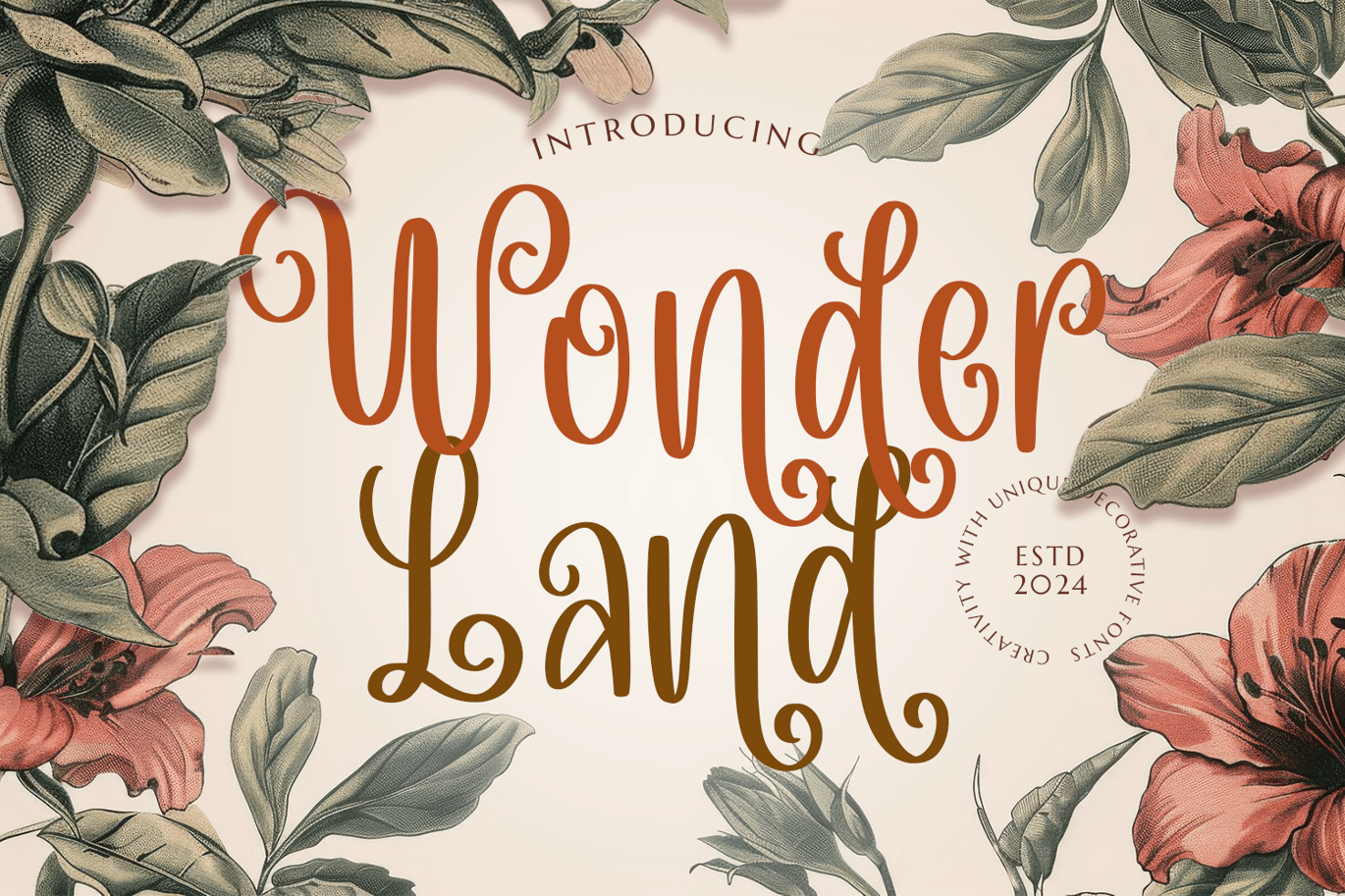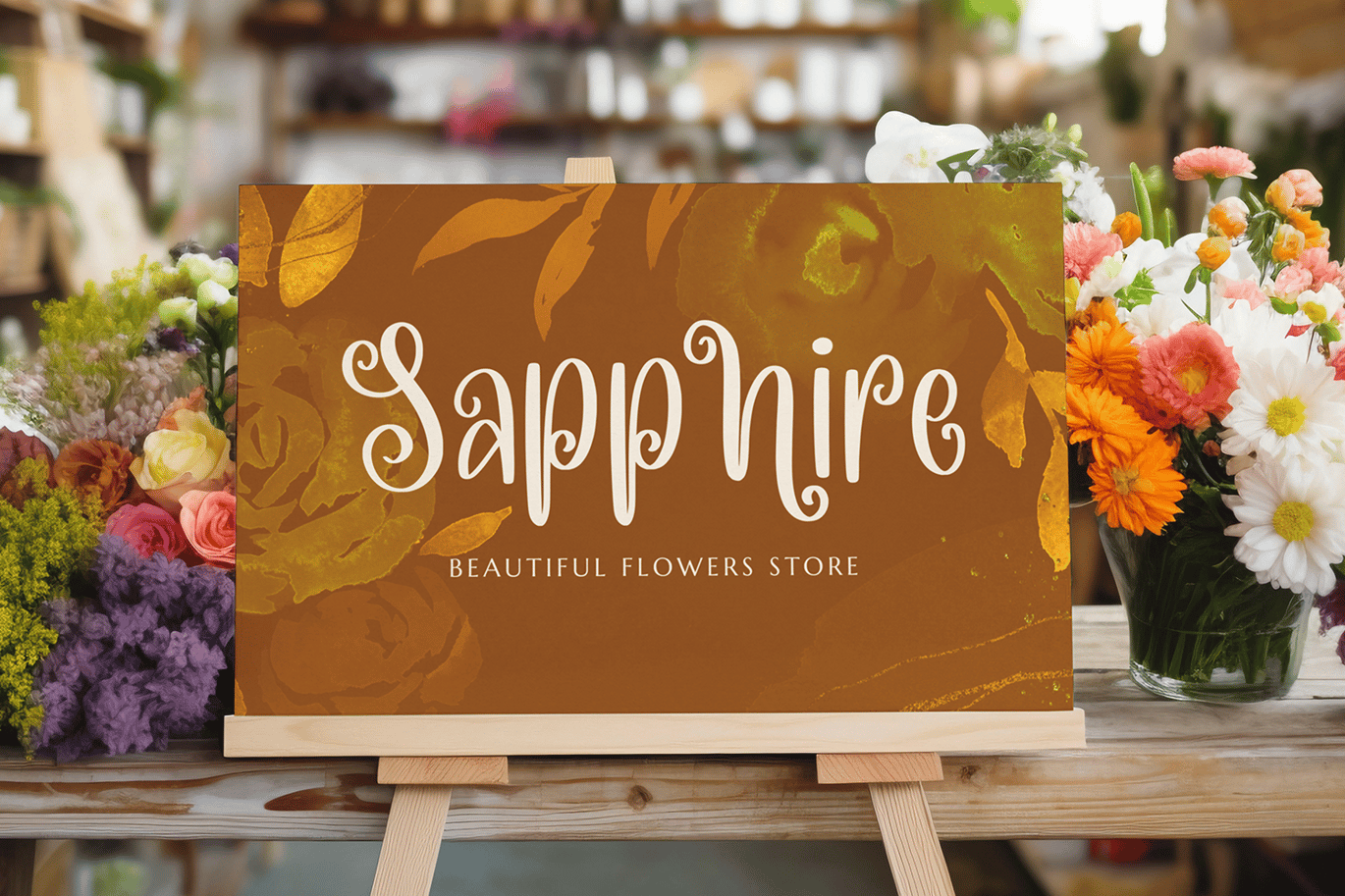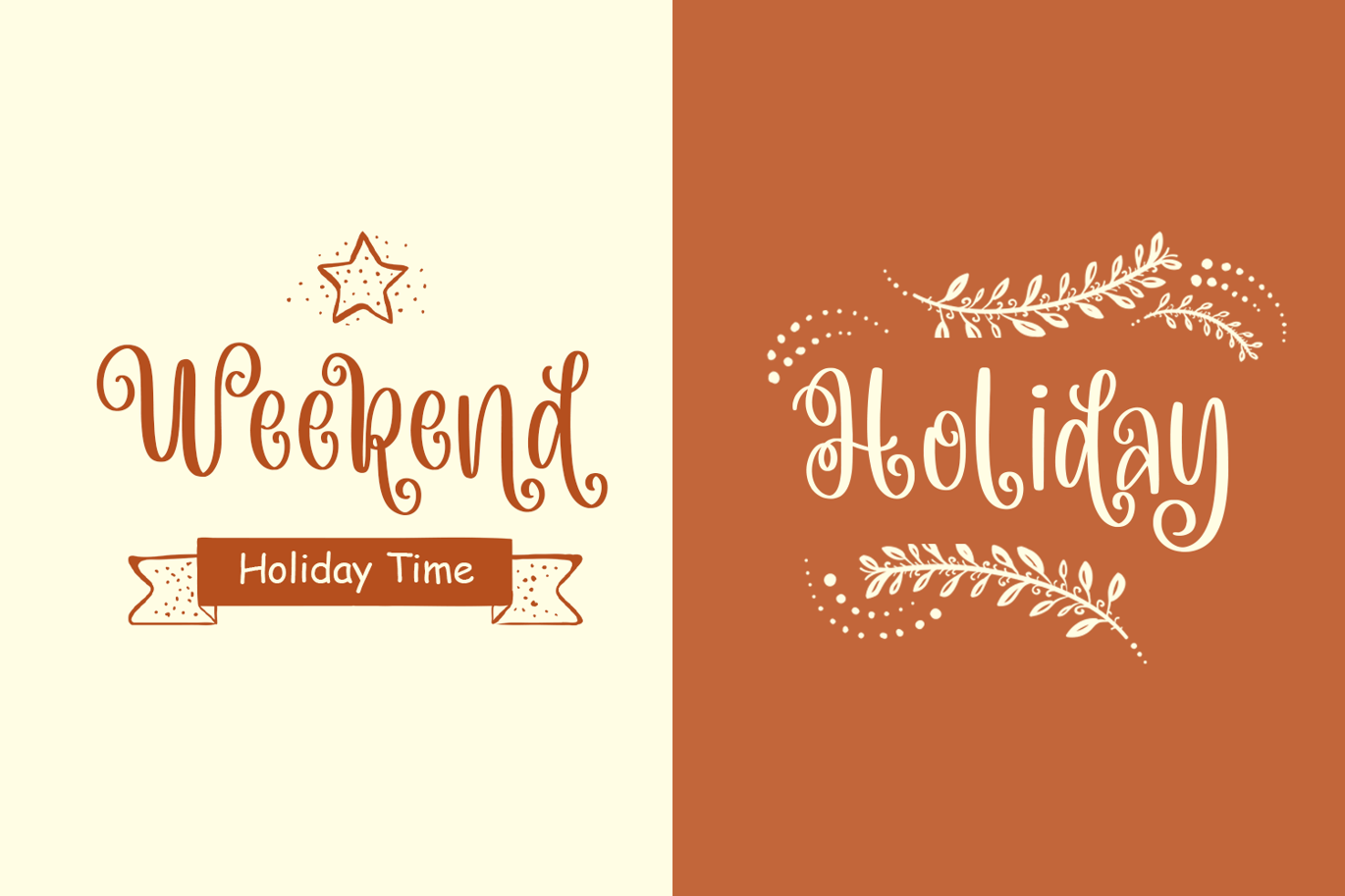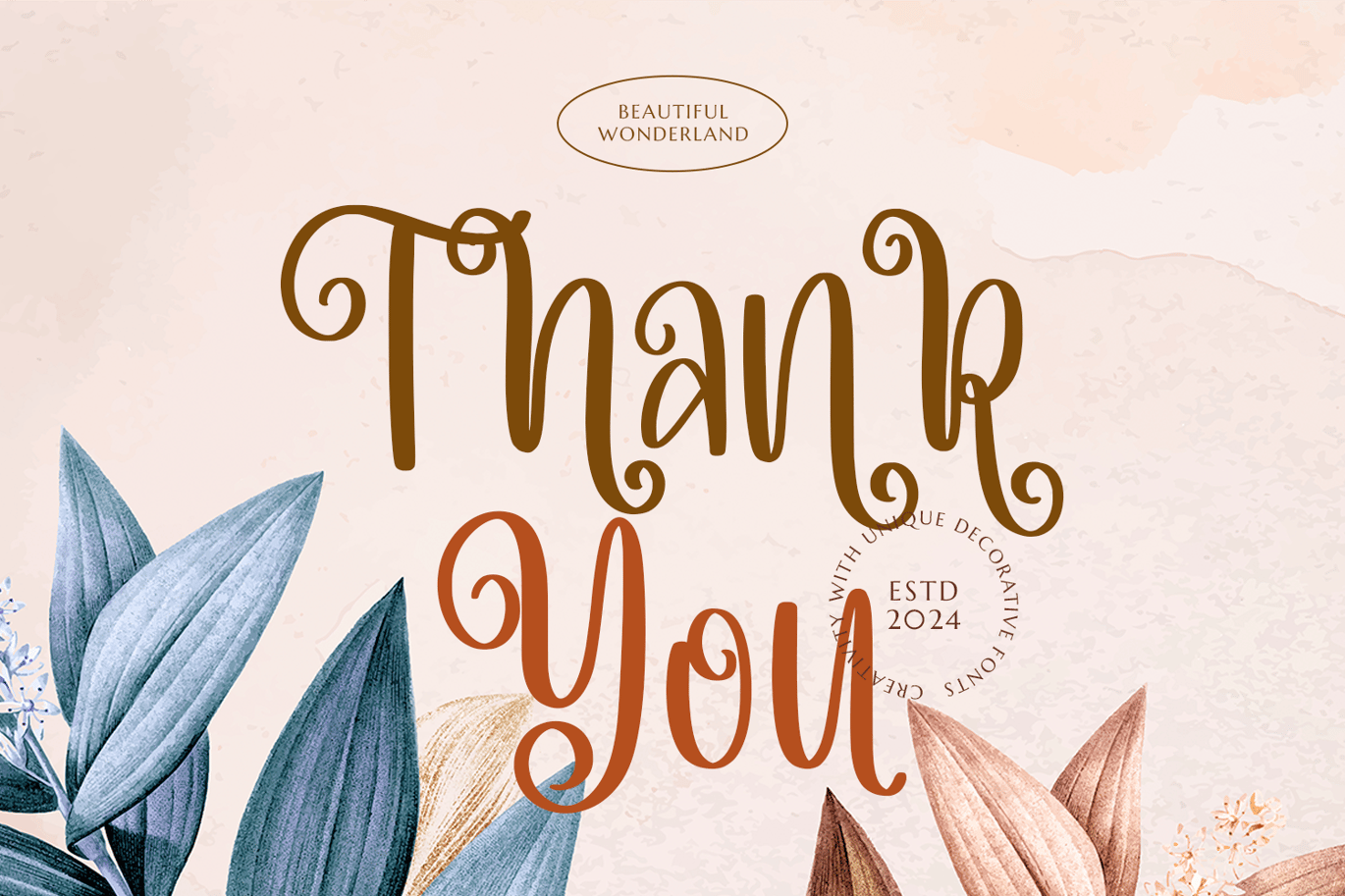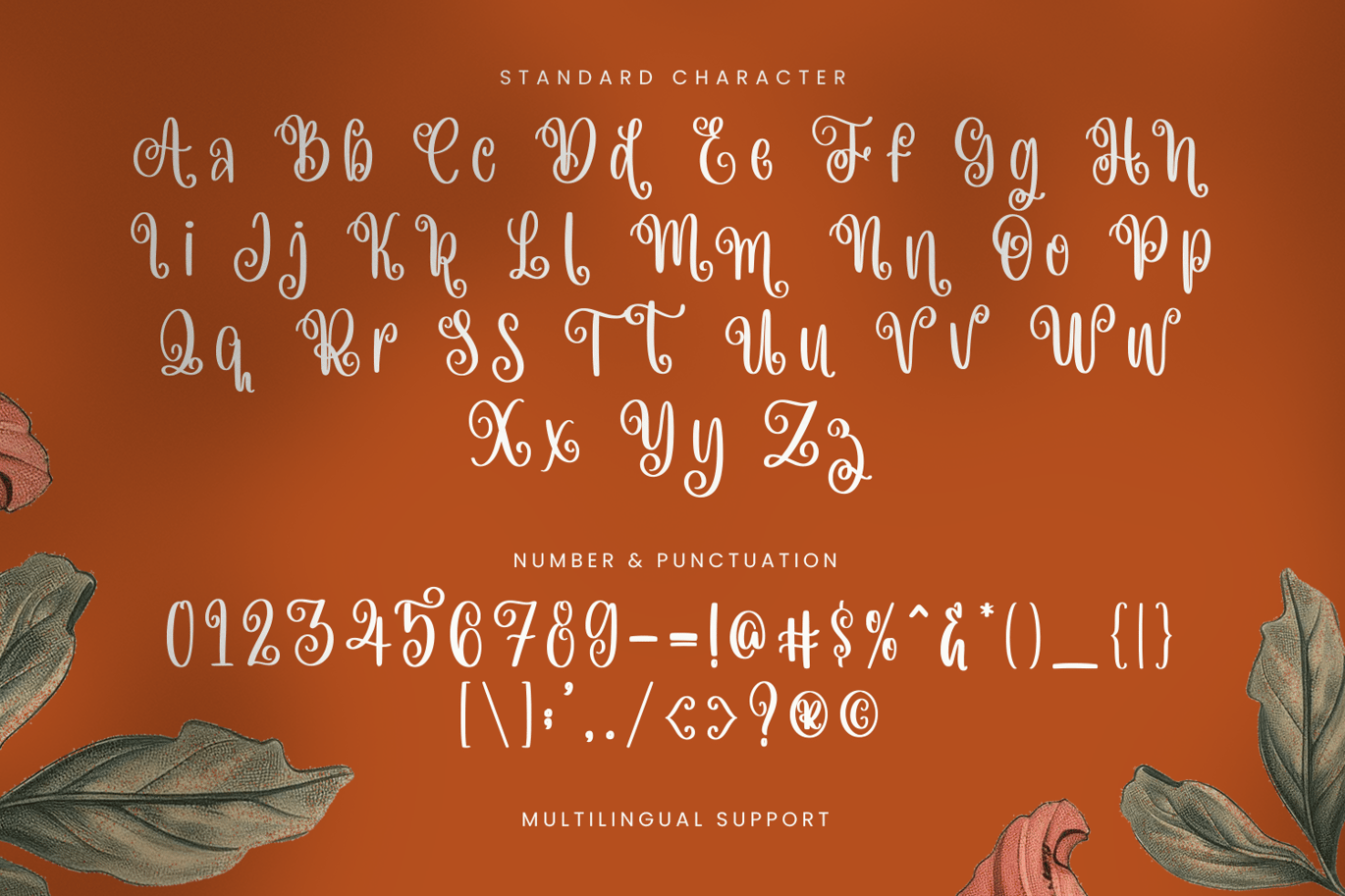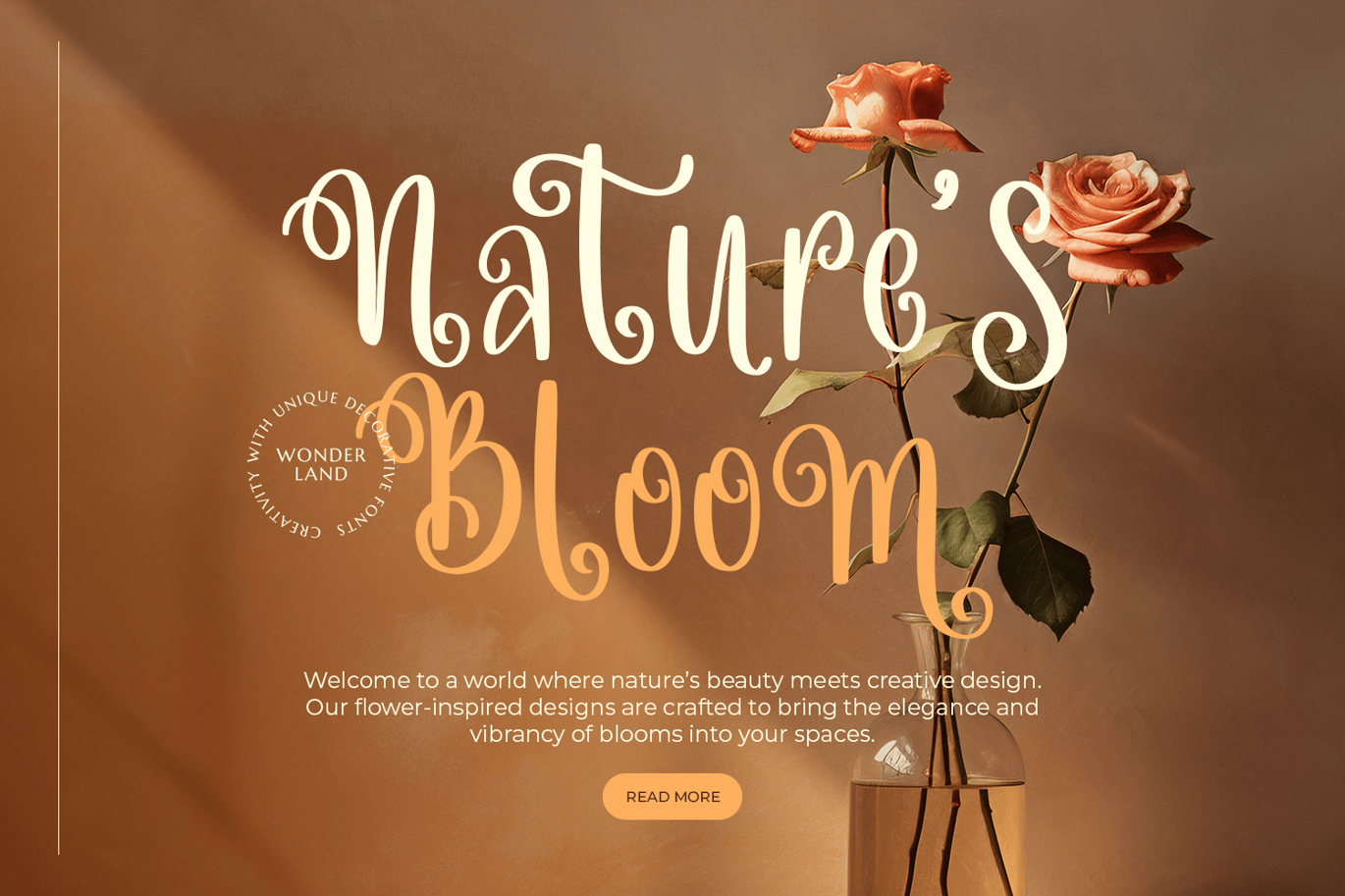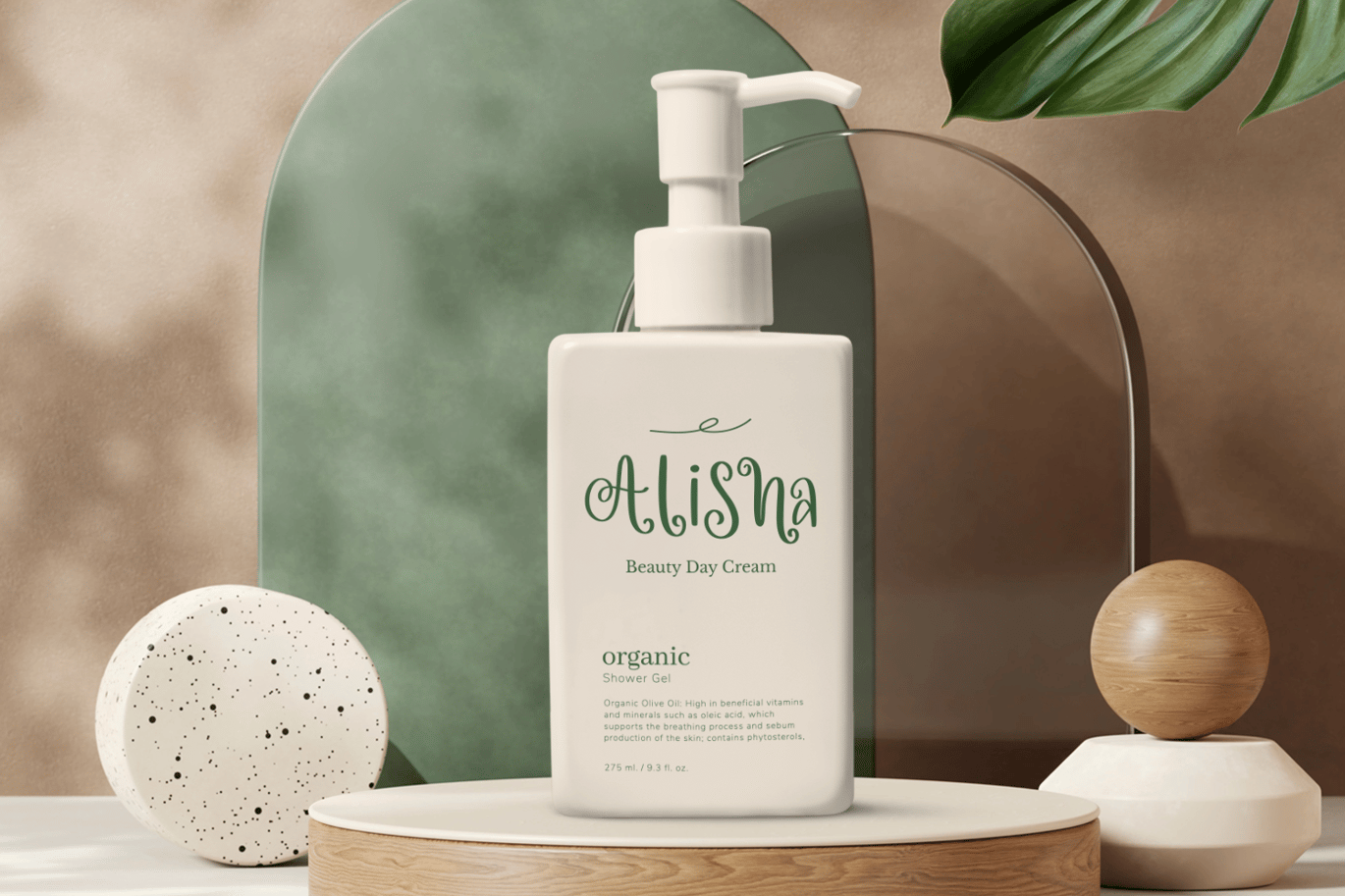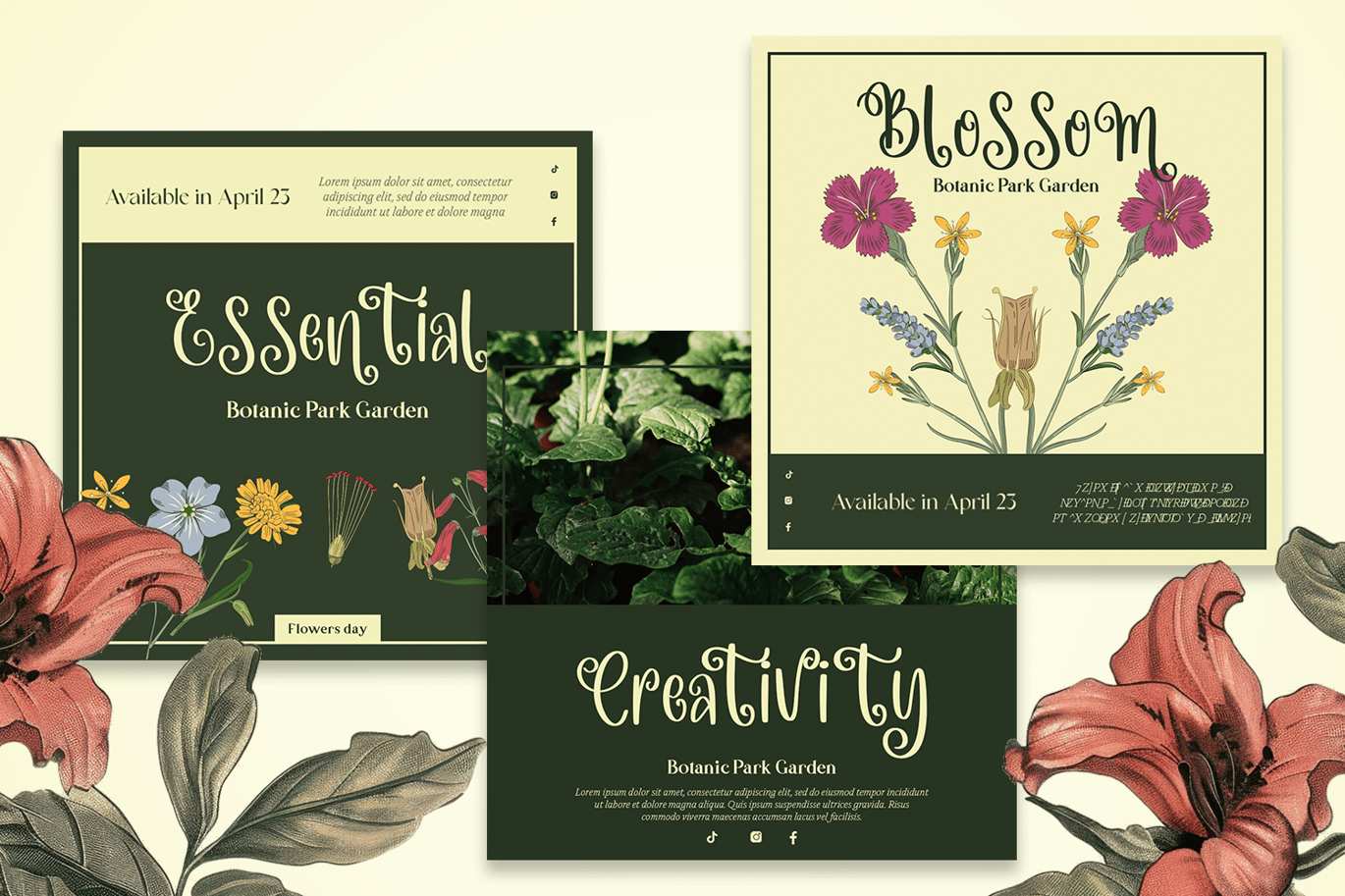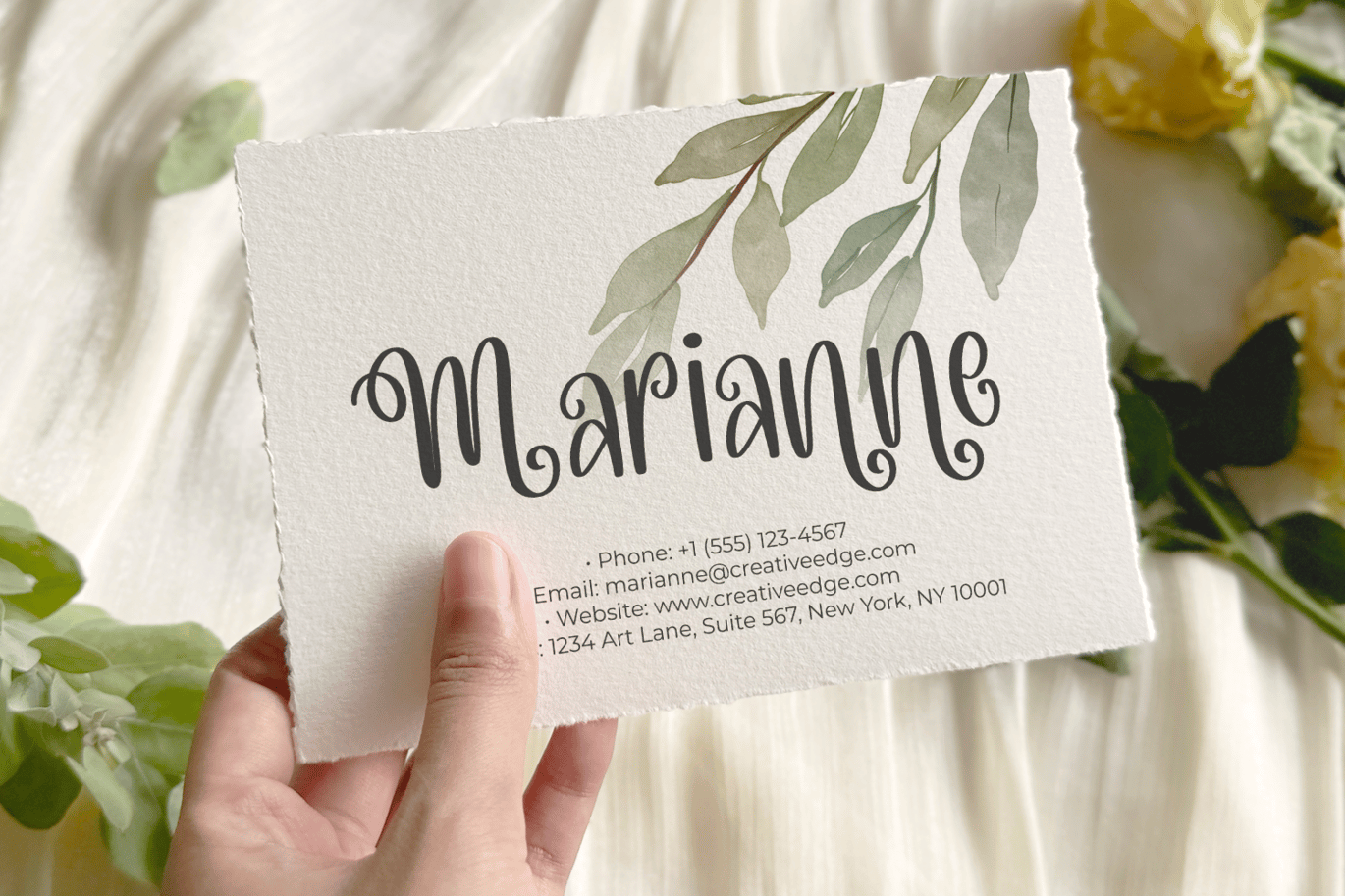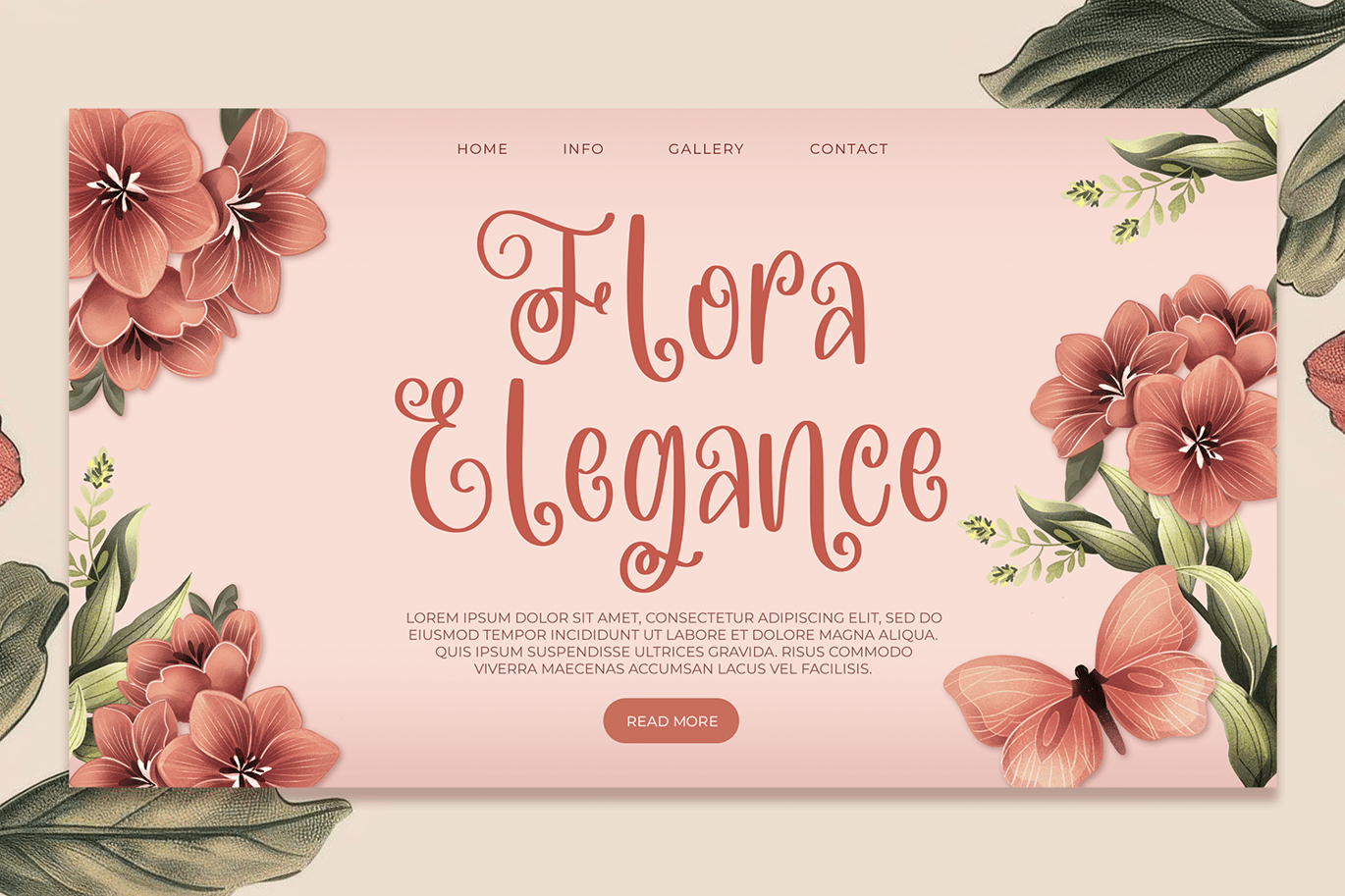
Wonderland – Christmas Font
“Wonderland” is a beautifully crafted handwritten font that brings a touch of elegance and warmth to any project. Its natural, flowing style is perfect for adding a personal and sophisticated feel to wedding invitations, birthday cards, and other special occasions. The gentle curves and smooth lines of this font make it an ideal choice for creating designs that stand out with grace and charm.
Whether you’re working on Christmas and New Year greetings, Easter decorations, or Thanksgiving crafts, “Wonderland” adapts seamlessly to any festive theme. This versatile font is also a great fit for Cricut projects, embroidery designs, and other crafting endeavors. Its timeless appeal ensures that your work carries a sense of celebration and joy, making it perfect for all your creative needs.
Add a touch of magic to your next project with “Wonderland.” Perfect for SVG designs, custom lettering, and unique craft projects, this font will help you create something truly special. Don’t wait—bring the elegance and charm of “Wonderland” into your design collection today!